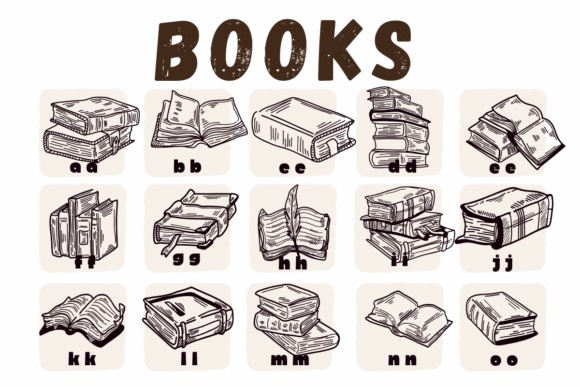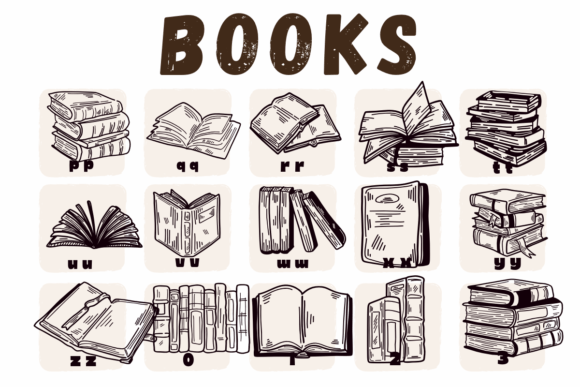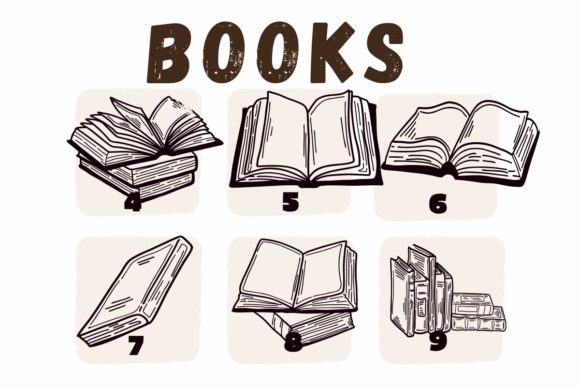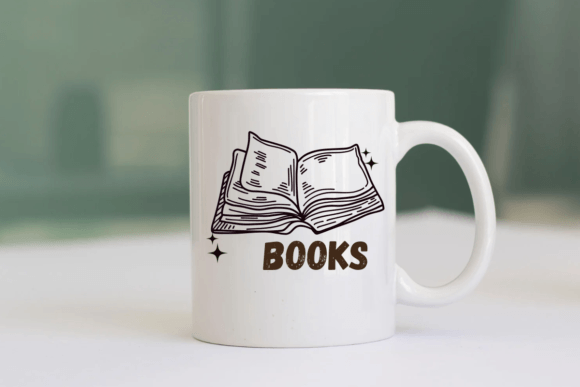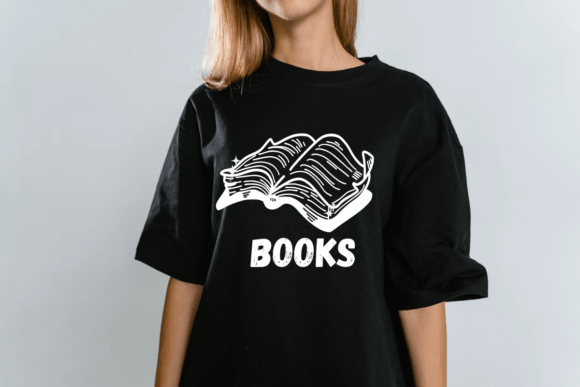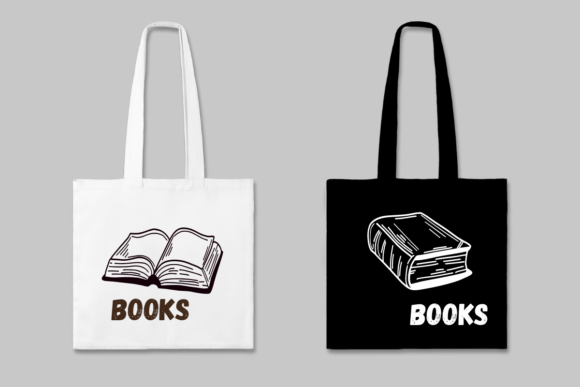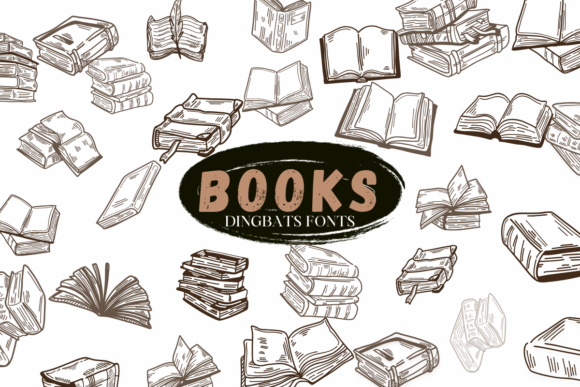
The Charm of Books Font: Elevating Your Creative Projects
I’ll never forget the time I was working on a wedding invitation project, and my client asked for a font that was “whimsical, yet elegant.” I scoured the internet, trying out font after font, but nothing seemed quite right. That was until I stumbled upon Books Font – a cute dingbat font with a lovely theme that instantly captured the essence of what my client was looking for.
A Personal Review of Books Font
- ✨ Cute and Playful: Books Font is perfect for projects that require a touch of whimsy and charm. The dingbat designs are cleverly crafted to add a personal touch to your creations.
- ✅ Elegant and Sophisticated: Despite its playful nature, Books Font exudes elegance and sophistication, making it suitable for a wide range of projects, from wedding invitations to logos.
- 🌈 Versatile: This font is not limited to just one type of project. You can use it for DIY crafts, decorations, and even social media graphics.
While Books Font is an excellent choice for many projects, there are a few things to keep in mind:
- 🤔 Limited Character Set: As a dingbat font, Books Font has a limited character set, which means you won’t have access to a wide range of letters and numbers.
- ⚠️ Glyphs and OpenType Features: While Books Font does offer some glyphs and OpenType features, they can be a bit tricky to navigate, especially for beginners.
The Story Behind Books Font
Books Font was designed by a talented type designer who wanted to create a font that captured the essence of books and reading. Inspired by vintage book illustrations and typography, Books Font was born – a font that’s both playful and elegant.
| What is Books Font? | Books Font is a cute dingbat font with a lovely theme, perfect for creative projects like wedding invitations, DIY crafts, and decorations. |
| Does Books Font have OpenType features? | Yes, Books Font offers some OpenType features, including glyphs and stylistic alternates. |